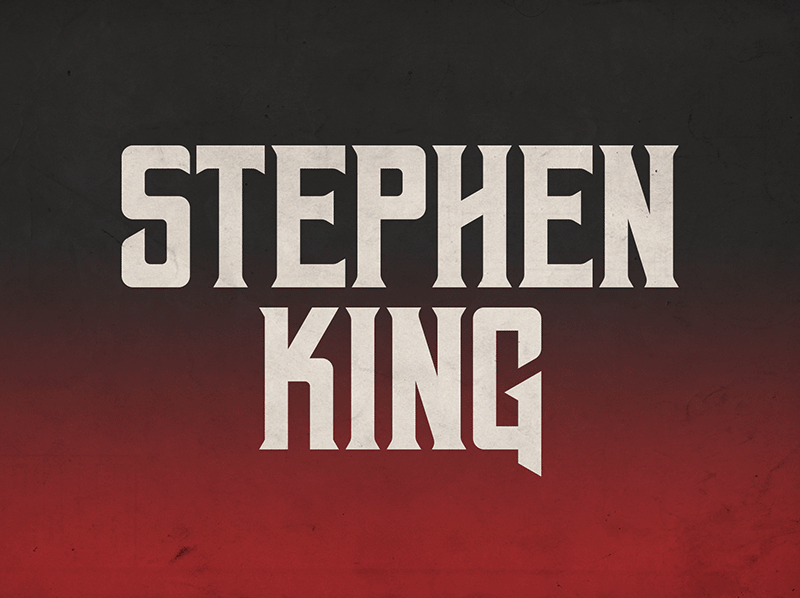
Geizer Typeface
Inspired by horror fiction, heavy metal, and things that go bump in the night – this font is named after Geezer Butler of Black Sabbath.